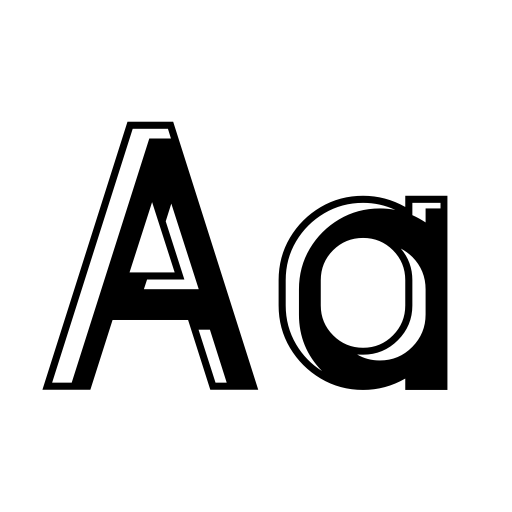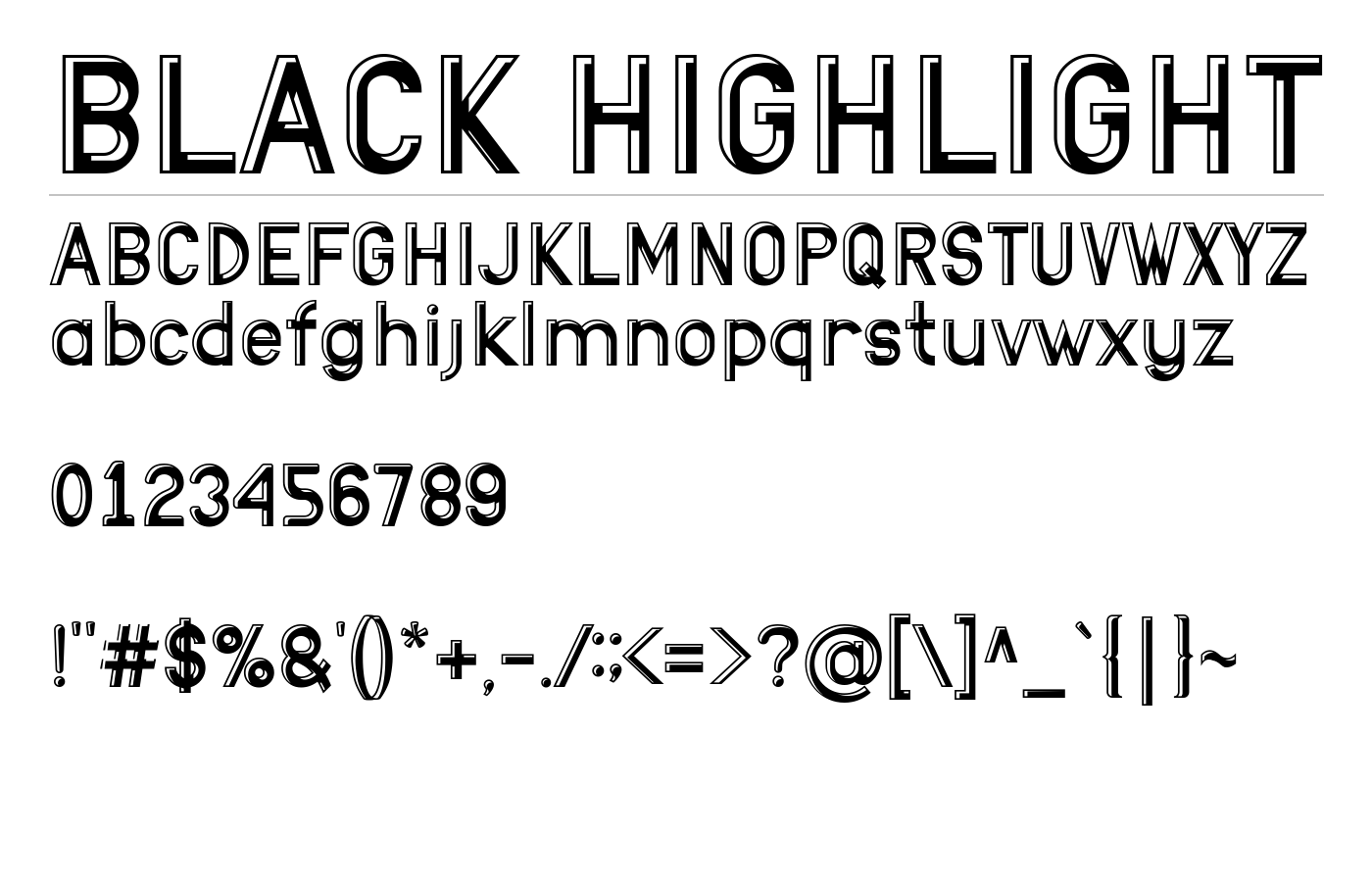
BLACK HIGHLIGHT is a bold, condensed sans serif font featuring a unique double-layered, shadowed effect that adds depth and visual interest. With its clean, geometric letterforms and strong presence, this font suits modern and dynamic designs, making it ideal for headlines, logos, and eye-catching branding where a striking and playful yet professional look is desired.
BLACK HIGHLIGHT Font
About BLACK HIGHLIGHT Font
| Font family | BLACK HIGHLIGHT Font |
| Designer | Indra Gunawan |